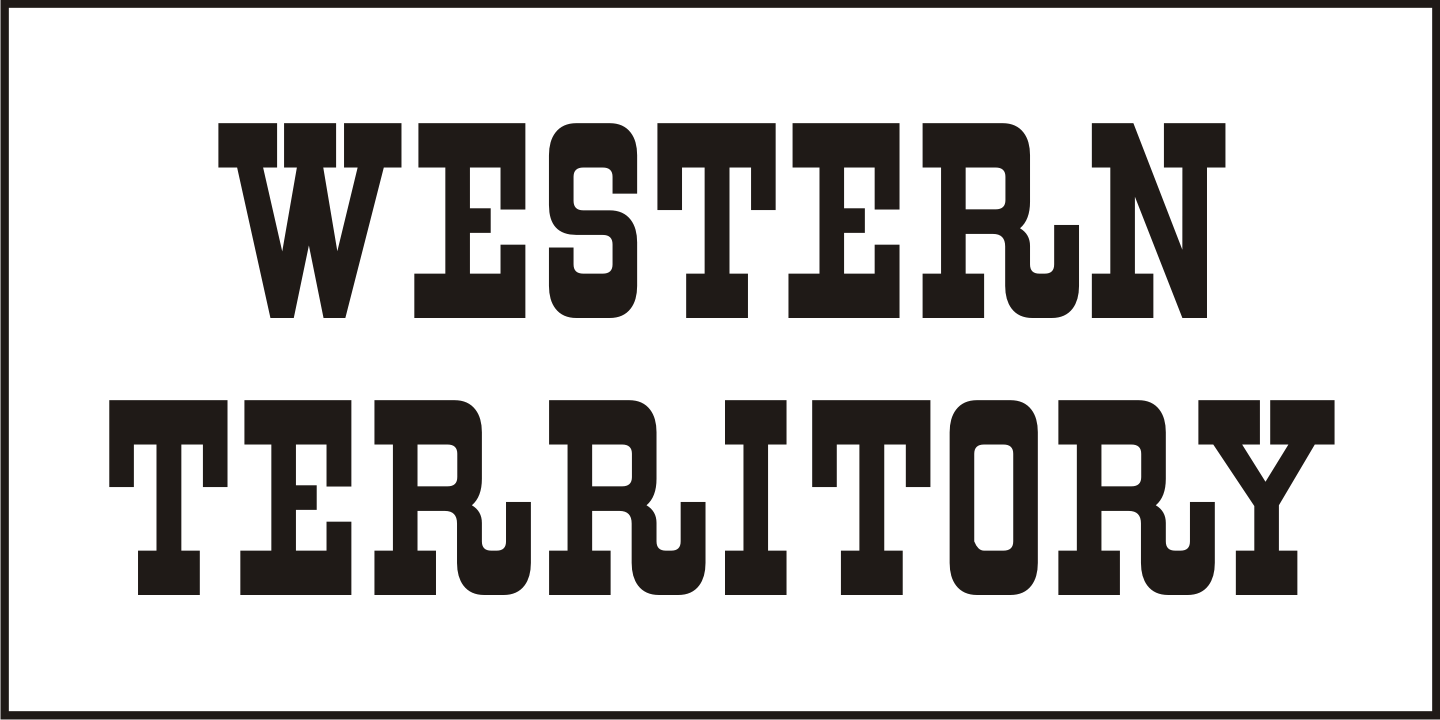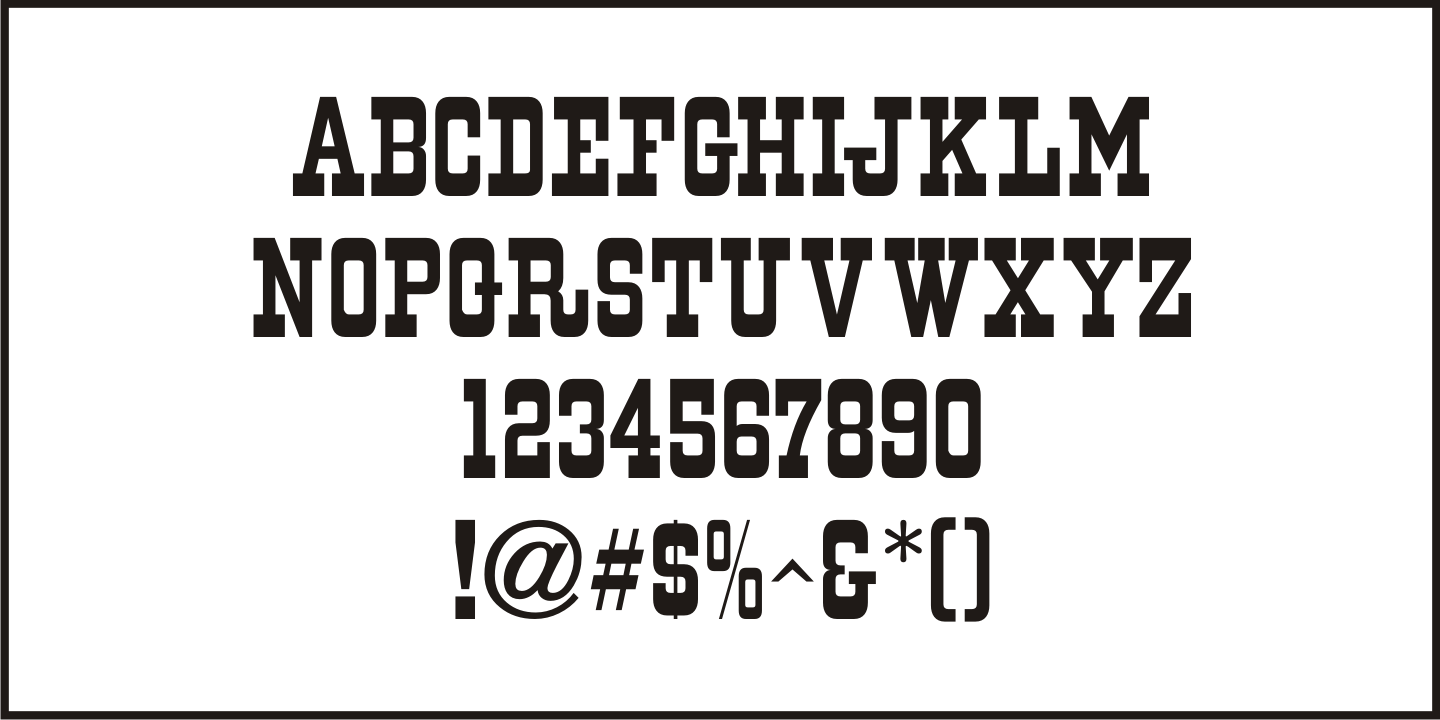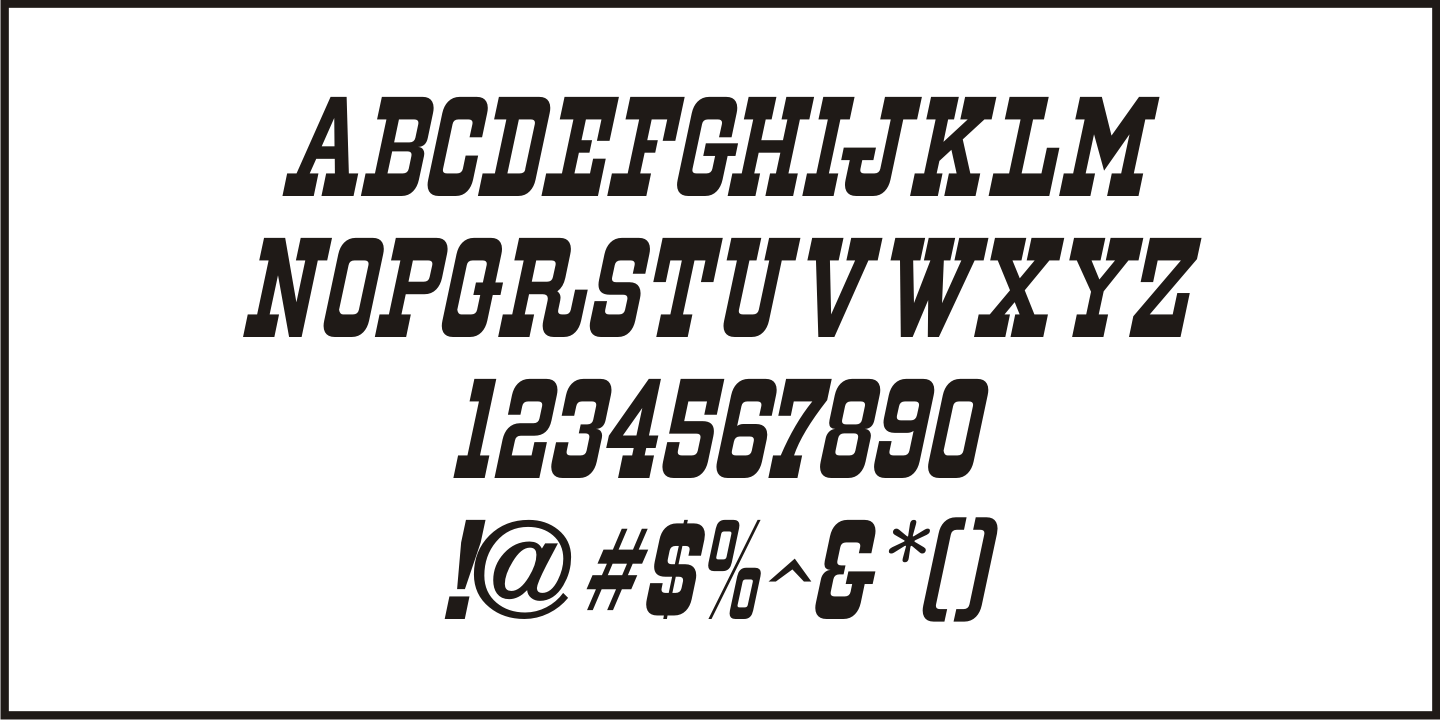
Western Territory
Browsing through images of old wood type for sale, a Western type design with some interesting character variations made the perfect subject for a digital revival.
Western Territory JNL is available in both regular and oblique versions.